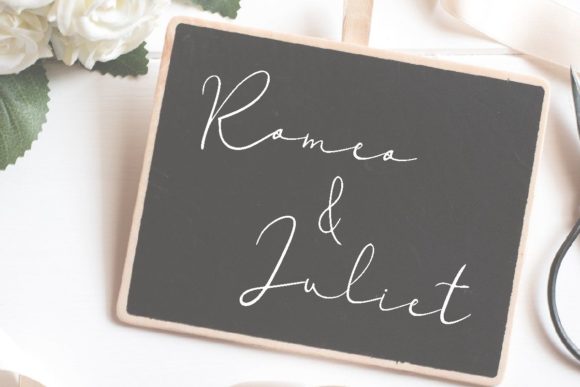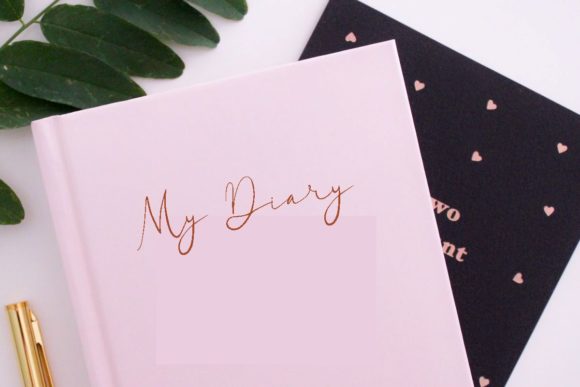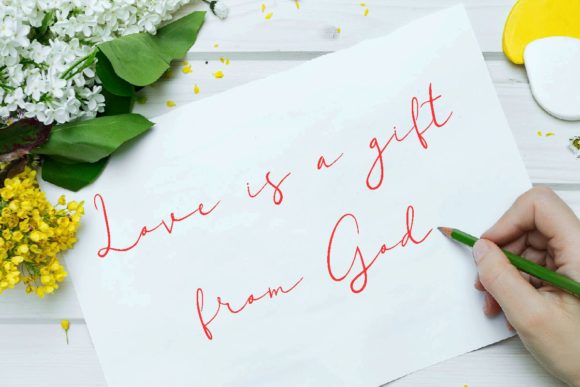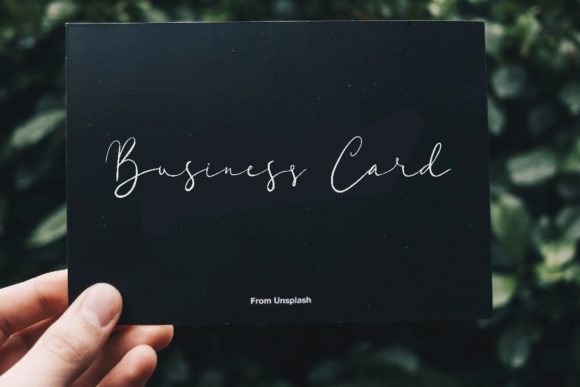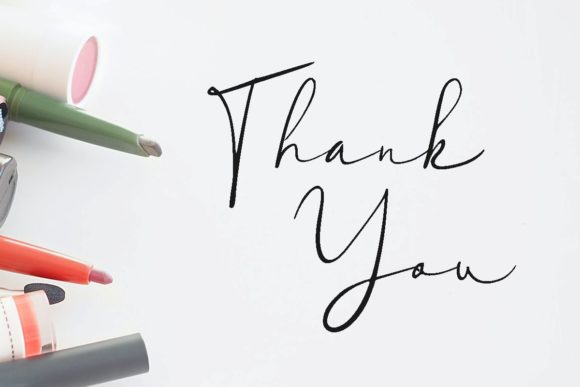
Introduction to Lovea Heart Font
Have you ever stumbled upon a design resource that instantly sparks your creativity and elevates your work to the next level? For designers, discovering a high-quality font can be a game-changer, especially when it’s as charming as the Lovea Heart Font. Imagine yourself working on a creative project, and you need a font that exudes warmth and elegance to match your vision.
That’s exactly what the Lovea Heart Font offers – a genuine handwritten font that’s perfect for adding a touch of personality to your designs. With its transparent background and smooth curves, this font is a design dream come true. Whether you’re working on a personal or commercial project, the Lovea Heart Font is sure to become a true favorite.
Key Features of Lovea Heart Font
- High-quality design resource ideal for creative projects, including invitations, greeting cards, and more.
- Lovea Heart Font features a transparent background, allowing for easy integration into any design.
- High-resolution font with a resolution of 300 DPI, ensuring crisp and clear text.
- Unique characteristics include a romantic and whimsical feel, making it perfect for expressing love and affection.
Honest Review: Lovea Heart Font
As a designer, I’m always on the lookout for high-quality design resources to elevate my creative projects. The Lovea Heart Font is a popular choice among designers, and I decided to give it a try.
- ✨ The Lovea Heart Font has a beautiful, elegant design that’s perfect for romantic or whimsical projects.
- ✨ The font comes with a transparent background, which is ideal for designers who want to add a touch of subtlety to their designs.
- ⚠️ The font may not be suitable for projects that require a more modern or edgy look.
- ⚠️ The font is not as versatile as some other design resources, making it less ideal for projects with a wide range of typography needs.
Overall, I’m impressed with the Lovea Heart Font’s quality and design. While it may not be the best choice for every project, it’s an excellent option for designers working on romantic or whimsical creative projects. I’d definitely recommend it as a design resource, especially for those on a budget.
The Lovea Heart Font is a high-quality design resource that offers a unique and creative way to express love and affection in various projects. This font features a transparent background, making it easy to use in different design scenarios.
Yes, the Lovea Heart Font is designed to be high-quality and suitable for high-resolution printing. It features a clear and crisp design that will not distort or become blurry when enlarged or printed at high resolutions.